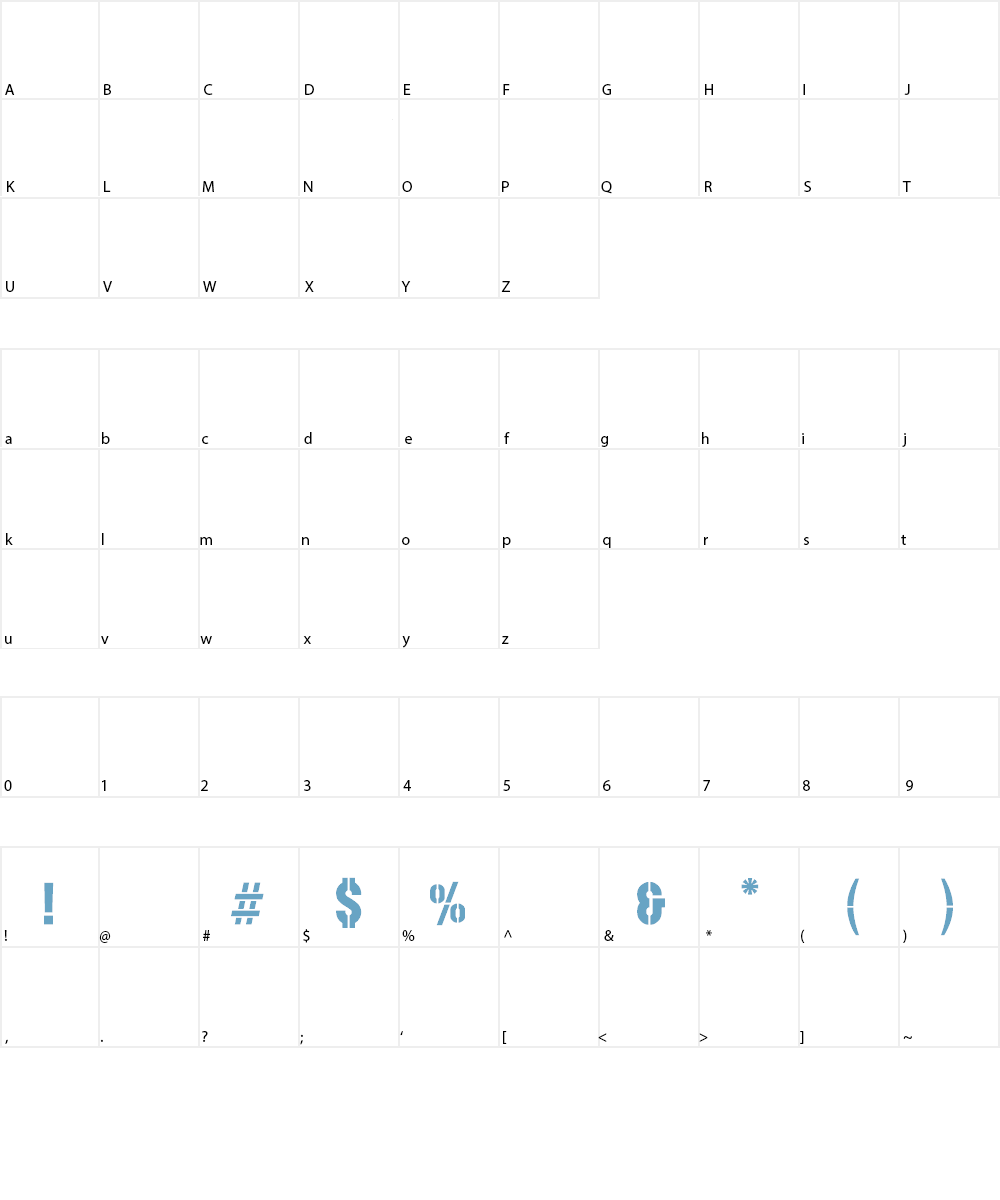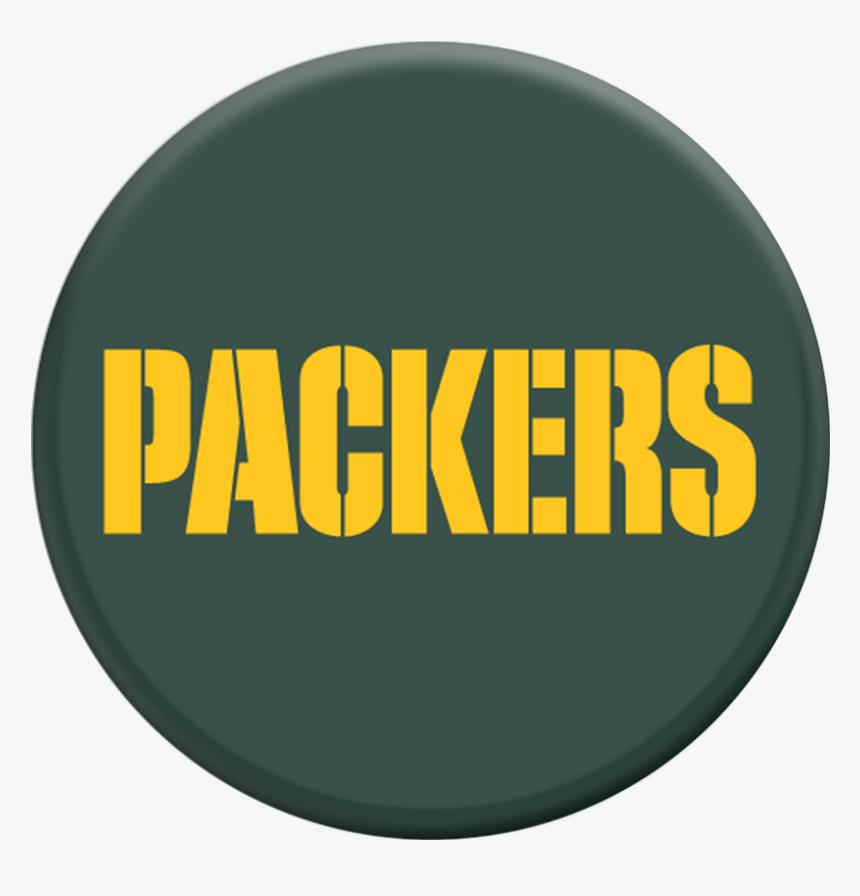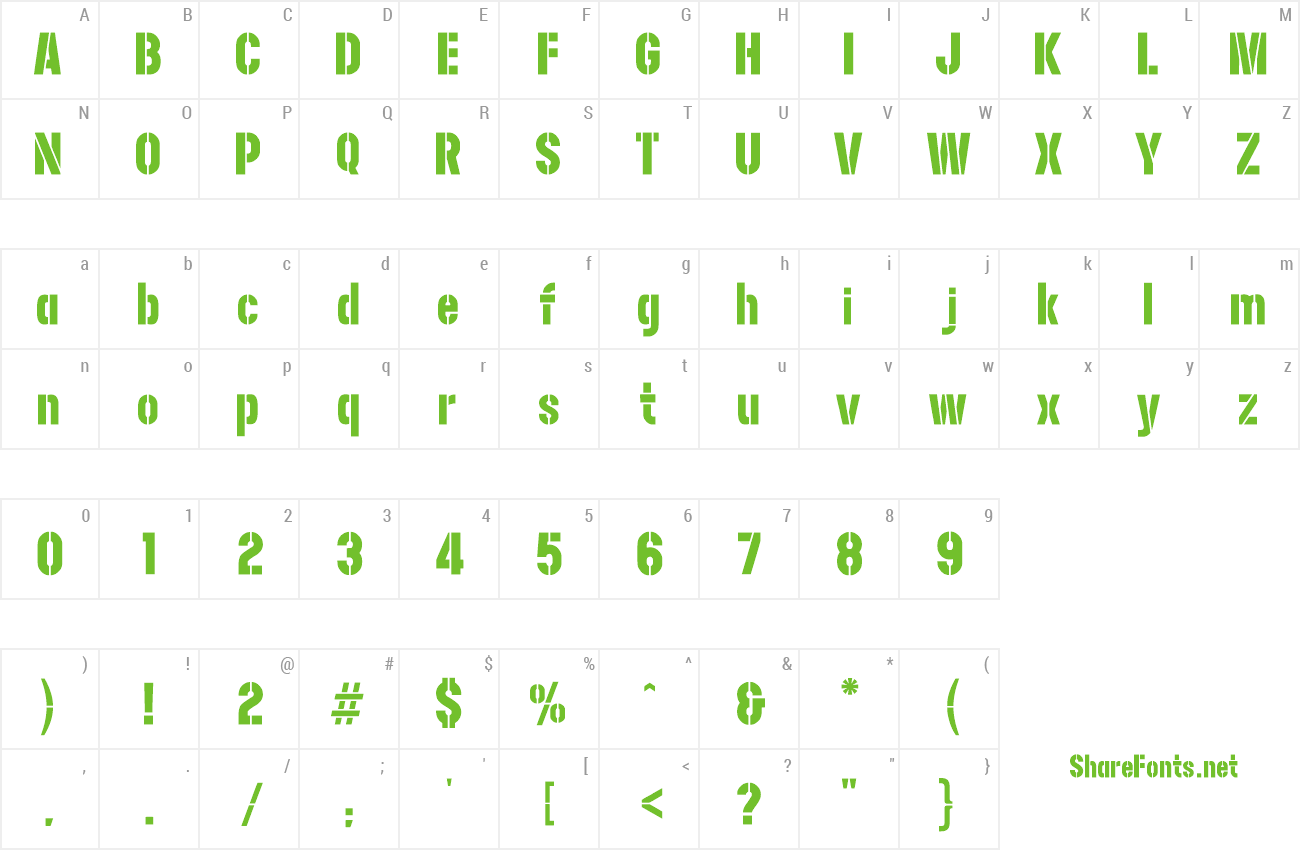
Green bay packers font free download. Download the free nfl packers font by the sports fonts. Green bay packers helmet logo. You can download the font for free here.
Nfl packers font by the sports fonts fontspace download the free nfl packers font by the sports fonts. It is a font font created in 2015 and has been downloaded 9632 times. See more ideas about green bay packers green bay packers.
The green bay packers logo features a white g in a green oval with a yellow outline with its wordmark beneath. First seen on dafont. Adsbygoogle windowadsbygoogle push.
Green bay packers logo font. Jerk designed by nerfect type laboratories. The packers wordmark is classic strong and steadfast.
Green bay packers logo. The wordmark is set in a stencil font which is very similar to gi. 82633 downloads 47 yesterday download.